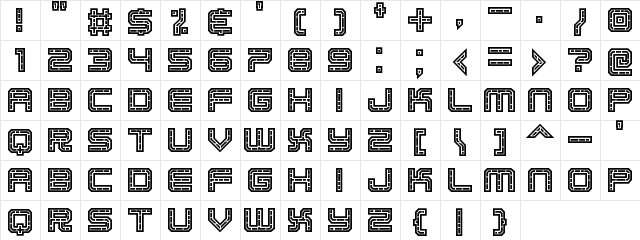
EC Bricks Regular
| Designer | Jγon Garnica |
Design Context for EC Bricks Typeface
EC Bricks is a composed and adaptable typeface that performs quietly and consistently across a wide range of design contexts.